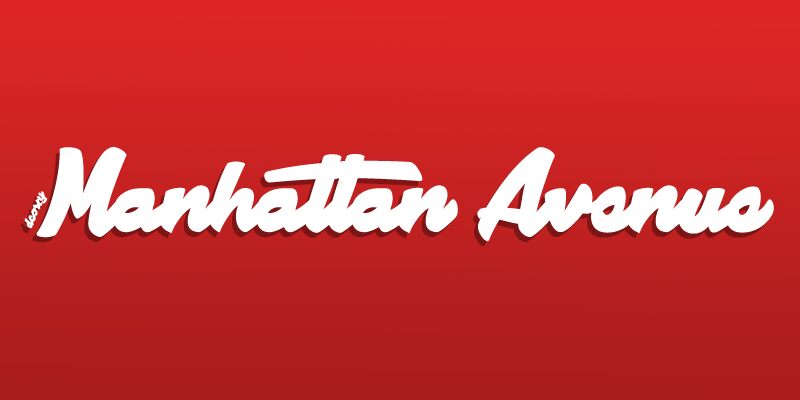
Manhattan Avenue is a captivating brush font that exudes bold, confident strokes. Crafted by designer dcoxy - Medina Gregory, this font seamlessly blends modern aesthetics with the organic fluidity of handwritten calligraphy.
The bold, sweeping letterforms command attention, making it a versatile choice for a wide range of design applications, from attention-grabbing headlines to impactful branding and packaging. Manhattan Avenue's distinctive style lends an air of sophistication and elegance, making it a compelling option for luxury, fashion, or lifestyle-oriented projects. Its bold presence and expressive character make it a standout choice for designers seeking to make a bold, memorable impression.